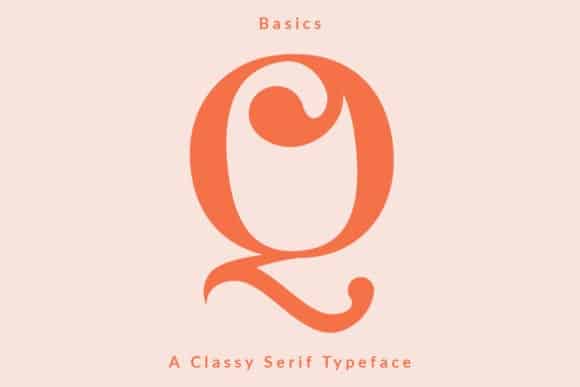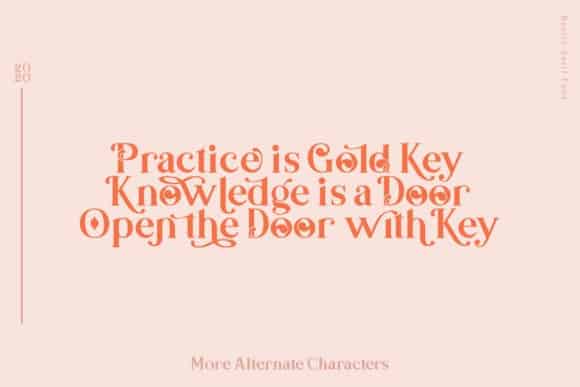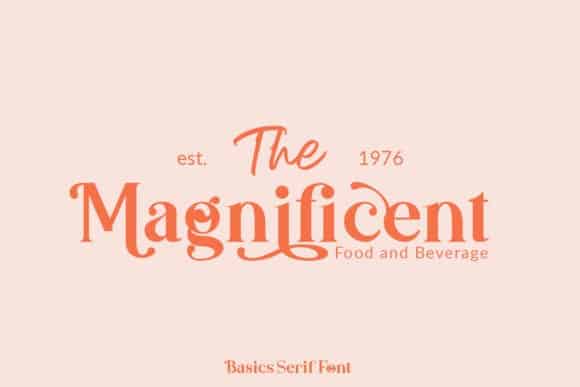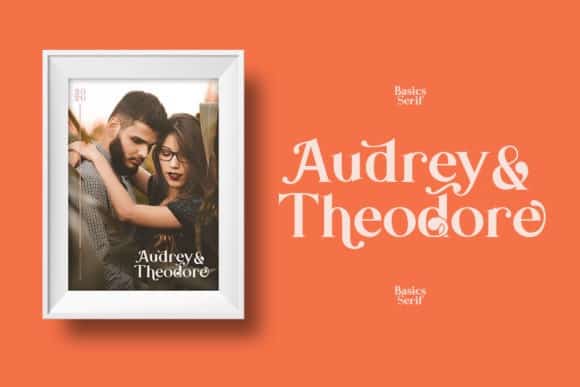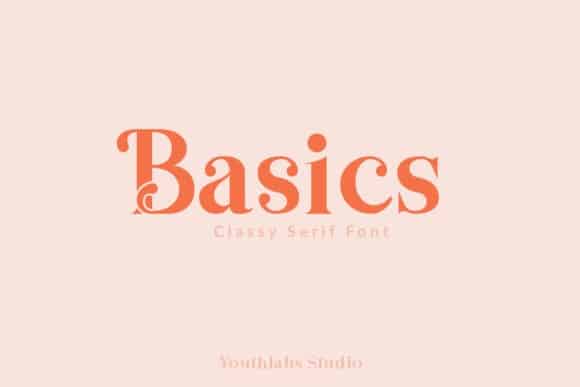
Basics Display Font
Basics Display Font is a contemporary, sophisticated, and unique serif font that comes full of ligatures and alternate characters perfect for creating variety in your designs. This is a serif font with display type properties. Basics Display Font is a playfully and nostalgic font, with classy swashes that will embellish any project you have in mind! It’s allows you to achieve an exquisite, yet subtle look and maximum versatility, whether in writing wedding carts, titles, logos and much more.